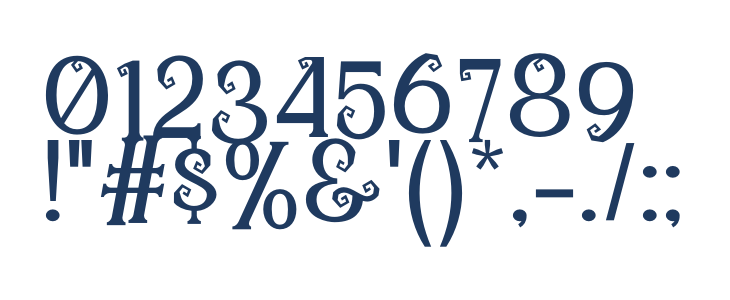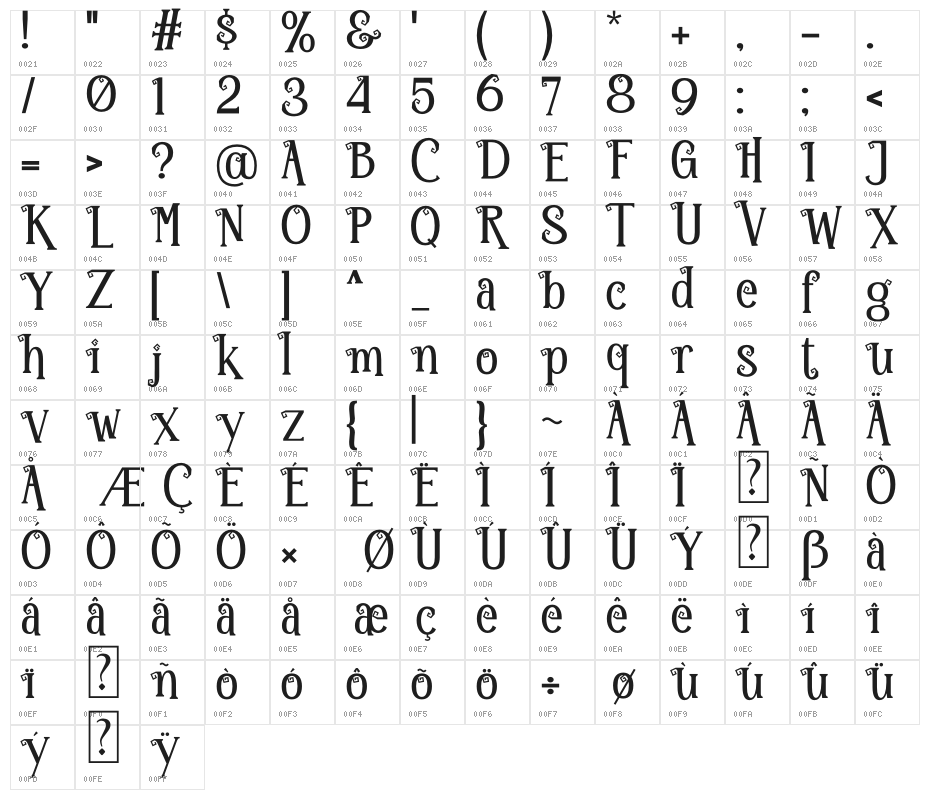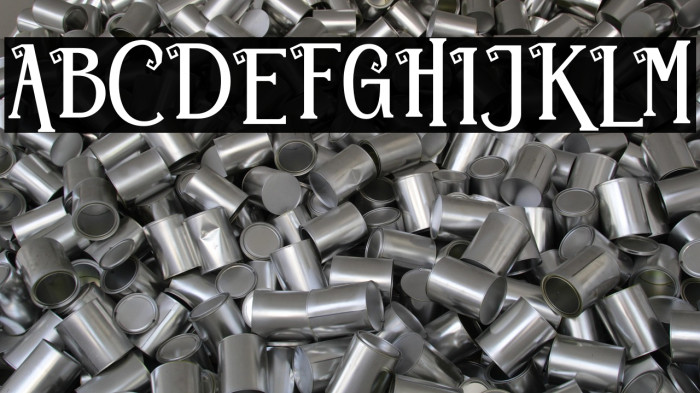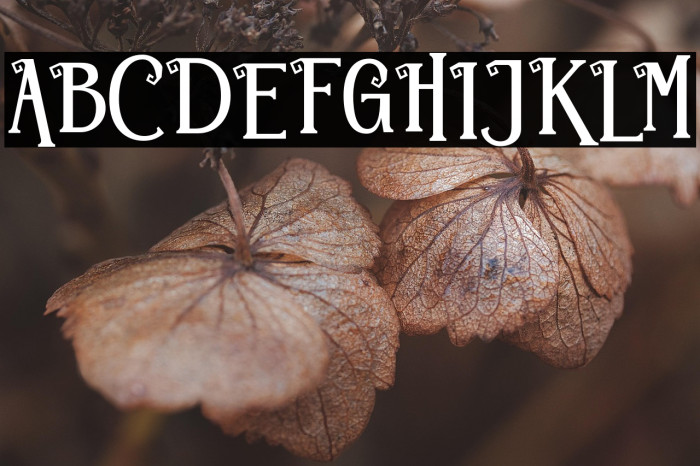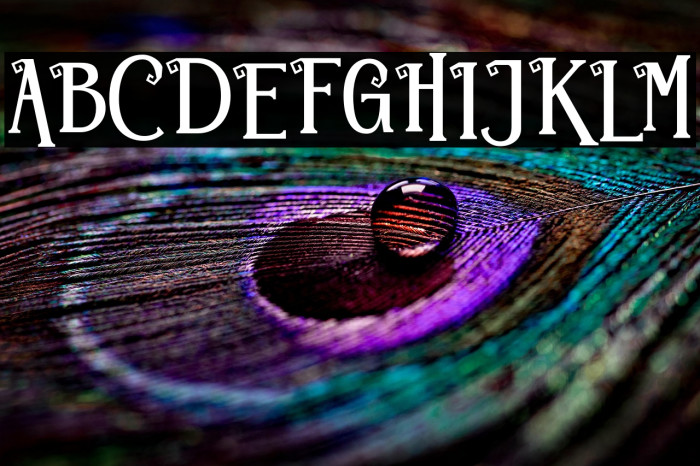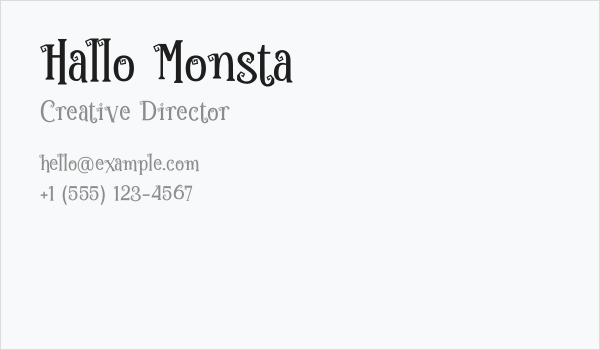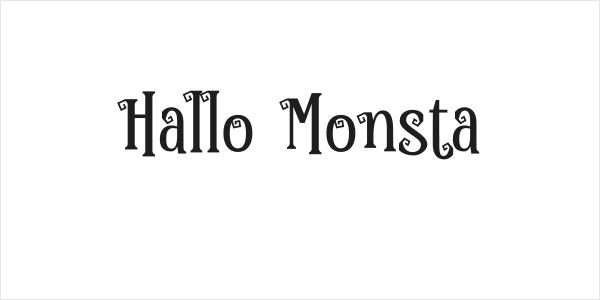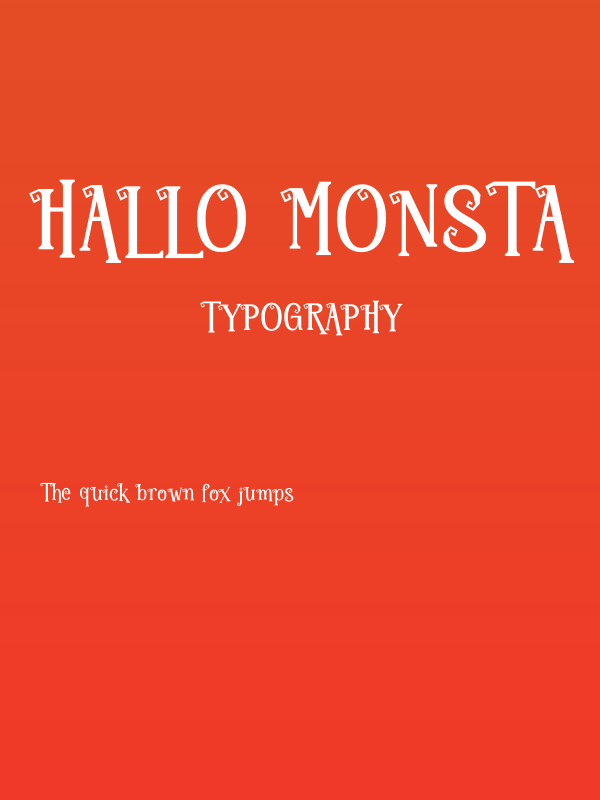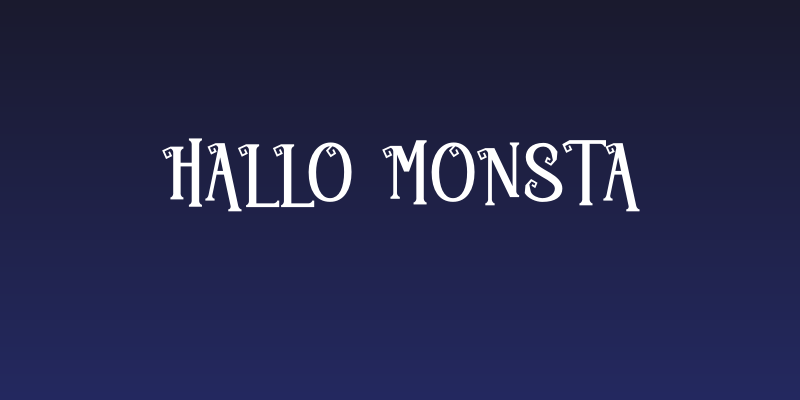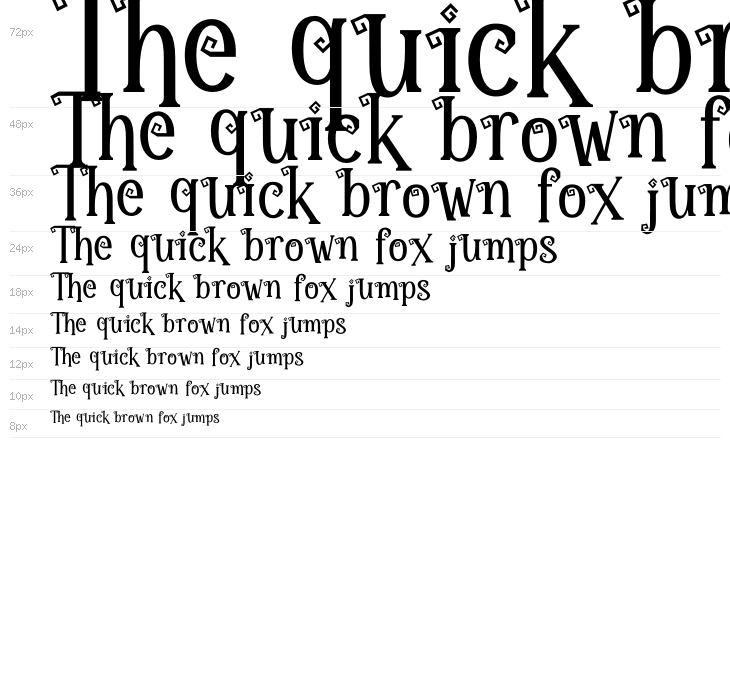
Hallo Monsta Font
Hallo Monsta Description
This playful and whimsical font features a unique design with curly embellishments on the ends of each character, giving it a lively and animated appearance. The letters are bold and slightly irregular, adding to the quirky charm. The uppercase and lowercase letters maintain a consistent style, while the numerals and special characters follow the same decorative theme. This font is perfect for projects that require a fun and engaging look, such as children's books, party invitations, or playful branding.
| Overall Style | Playful, Whimsical, Decorative |
| Proposed Projects | Ideal for children's books, party invitations, playful branding, and creative posters. |